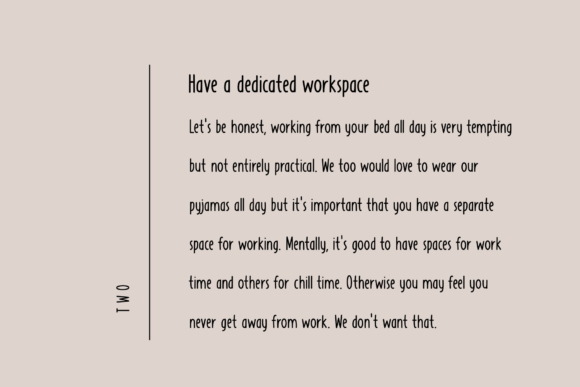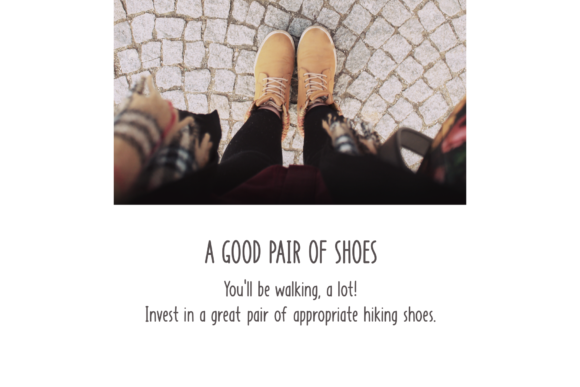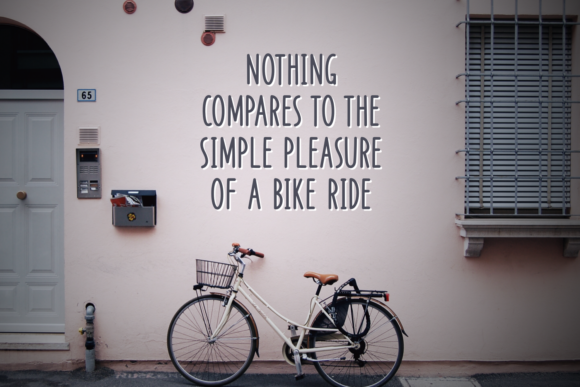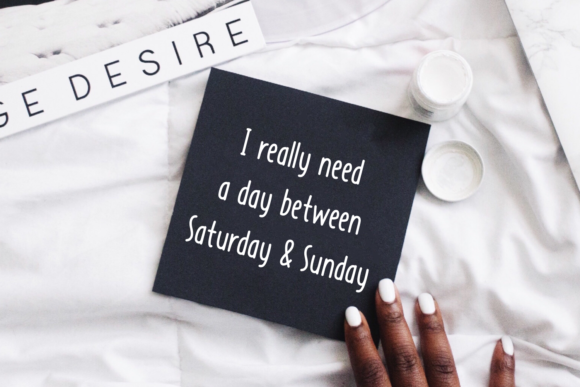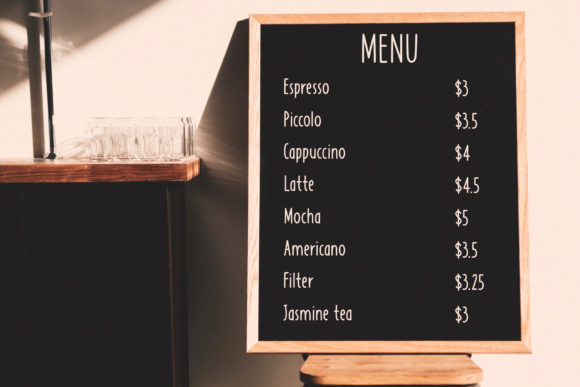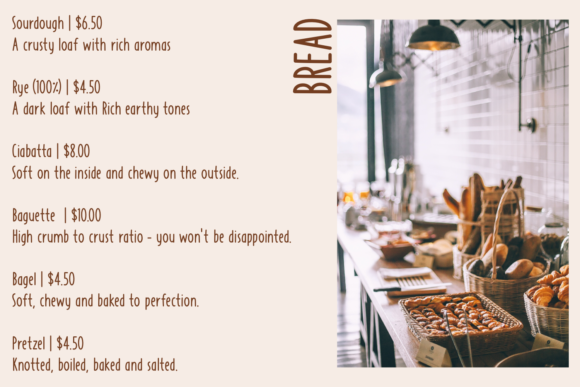
Introduction to Simply Neatly Font
Have you ever been working on a creative project, pouring your heart and soul into it, only to be held back by the perfect font to match your vision? I know I have. That’s why I’m excited to share with you the Simply Neatly Font – a natural handwritten font that’s about to become your new design BFF.
Whether you’re creating chalkboard quotes, teaching materials, or any other design that needs a personal touch, Simply Neatly Font is the perfect addition to your design resource arsenal. With its authentic look and feel, this high-quality font is sure to add a realistic feel to your designs, making them stand out from the crowd.
Key Features of Simply Neatly Font
- Designed with a clean and minimalist approach, making it perfect for use in logos, typography, and other design elements.
Honest Review: Simply Neatly Font
As a designer, I’m always on the lookout for high-quality design resources that can elevate my creative projects. Recently, I stumbled upon the Simply Neatly Font, and I must say, it’s a game-changer. The moment I downloaded it, I knew I had to share my experience with fellow designers.
- ✨ High-quality typography: The font is clean, modern, and effortlessly legible, making it perfect for a variety of design projects.
- ✨ Versatile: The Simply Neatly Font is incredibly versatile and can be used for both digital and print projects, from brochures to website headers.
- ⚠️ Limited character set: While the font is incredibly versatile, the character set is somewhat limited, which may be a drawback for designers working on complex projects.
- ⚠️ Not ideal for bold text: While the font is great for regular text, it may not be the best choice for bold or italic text, as it can become somewhat hard to read.
Overall, I’m thoroughly impressed with the Simply Neatly Font. Its high-quality typography, versatility, and free download make it an excellent addition to any designer’s toolkit. While it may have some limitations, I believe it’s an excellent choice for most design projects, especially those with transparent backgrounds.
To get the most out of the Simply Neatly Font, use it in conjunction with other high quality design elements. Experiment with different font sizes, colors, and styles to create a unique look. You can also use the font in combination with graphics and images to add visual interest to your project.
The Simply Neatly Font is ideal for a variety of creative projects, including business cards, brochures, and social media graphics. Its high quality and transparent background make it a versatile design resource that can be used in a range of applications.